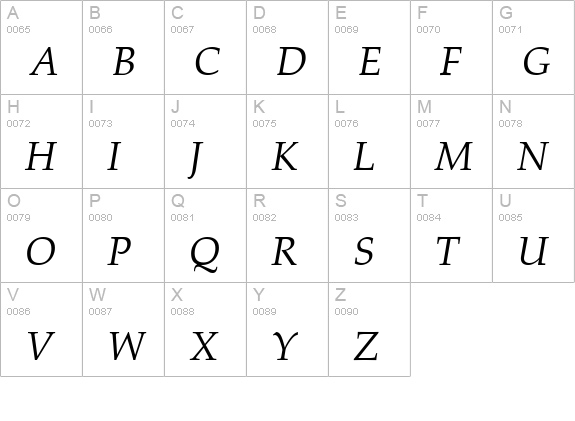
Palton ITALIC Font Details
Palton ITALIC is a distinctive, italic variant in the Palton typeface family \xE2\x80\x94 well suited to design and typography projects.
Introducing Palton ITALIC, a sleek and sophisticated font that exudes elegance and modernity with its slanted and stylish design. This captivating typeface is the perfect choice for those seeking to add a touch of class to their creative projects. Palton ITALIC offers a unique blend of elegance and versatility, making it suitable for a wide range of design applications, including logos, branding, invitations, headlines, and more. Its clean lines and subtle curves create a sense of effortless grace, while its italicized form adds a touch of drama and flair. What sets Palton ITALIC apart from other fonts is its incredible accessibility. This font is freely available to download at FontsMarket.com, allowing users to effortlessly incorporate its beauty into their designs without any restrictions. Whether you're a professional designer or a DIY enthusiast, Palton ITALIC is the perfect tool to elevate your creative endeavors. With Palton ITALIC, you have the freedom to express your creativity with confidence. Its wide range of weights and styles ensures that you can find the perfect variation to suit your specific design needs. Whether you prefer a bold and eye-catching look or a more understated and refined aesthetic, Palton ITALIC has got you covered. Designed with meticulous attention to detail, Palton ITALIC offers exceptional legibility and readability, ensuring that your message is conveyed with clarity and impact. Its clean and crisp design makes it a breeze to read, even at smaller sizes, making it an ideal choice for both print and digital applications. So why settle for ordinary when you can embrace extraordinary? Download Palton ITALIC today at FontsMarket.com and unlock the endless possibilities that this remarkable font has to offer. Elevate your designs to new heights, captivate your audience, and make a lasting impression with Palton ITALIC.